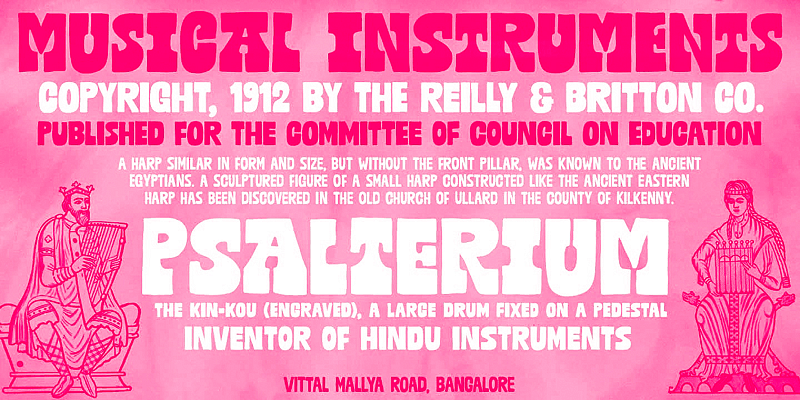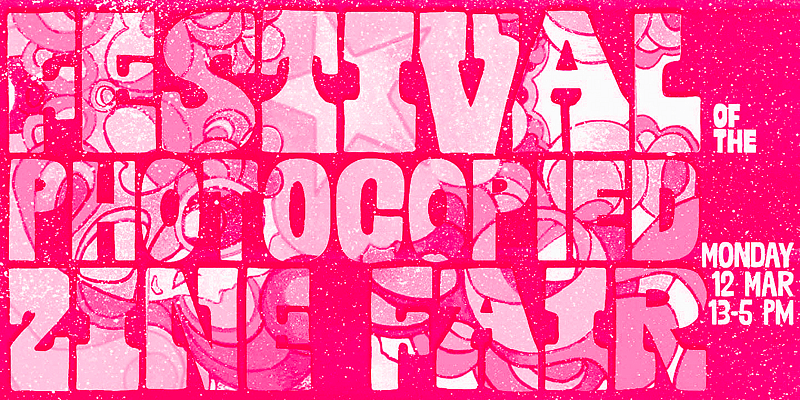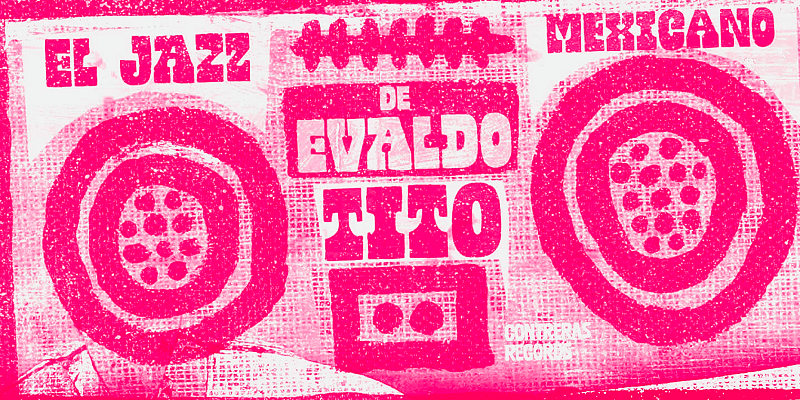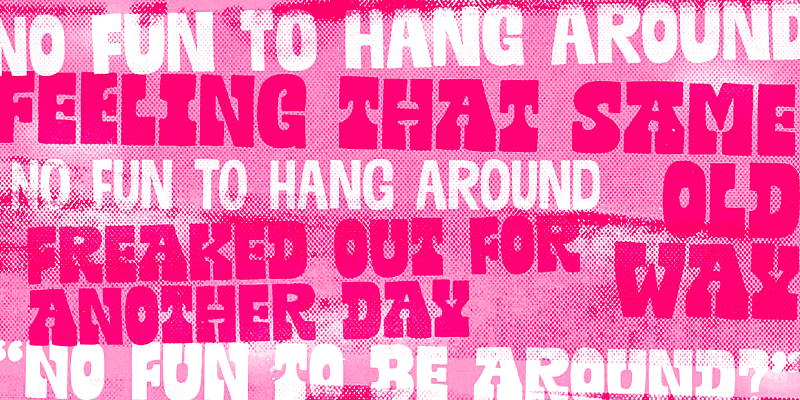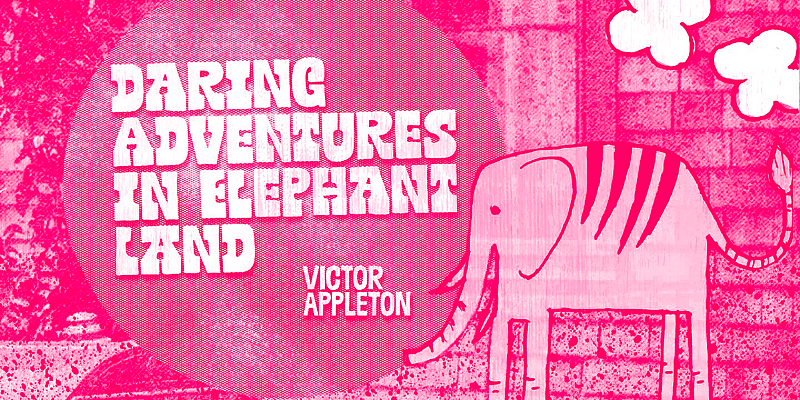
Mudstone Serif is designed with lovely oddities and quirks. Definitely created for getting noticed in an affirmative, authentic way. Mudstone is all caps, each with at least 2 sets of uppercase letters. There are also stylistic alternates in each font for that extra something. Critically cool, seriously creative, dangerously unique. Made to work hand-in-hand with Mudstone Sans!